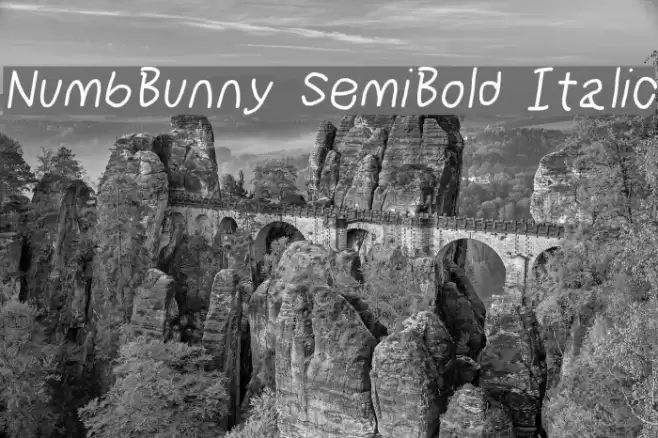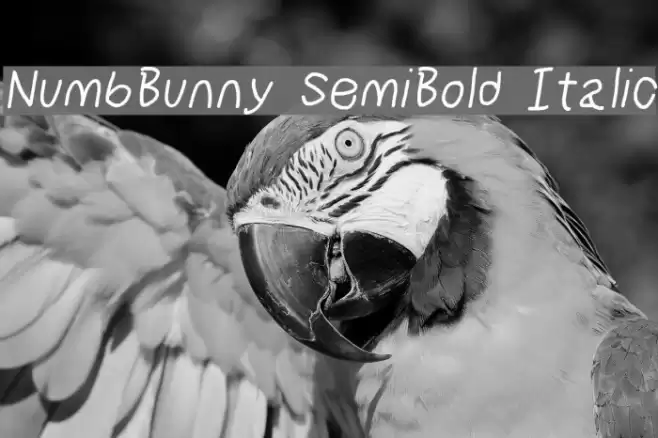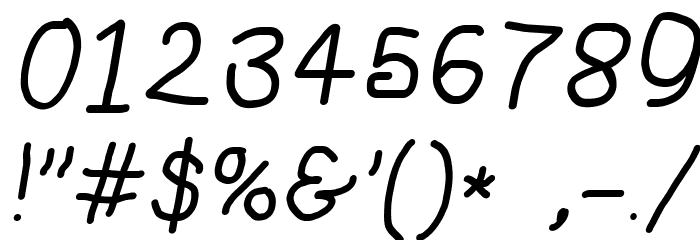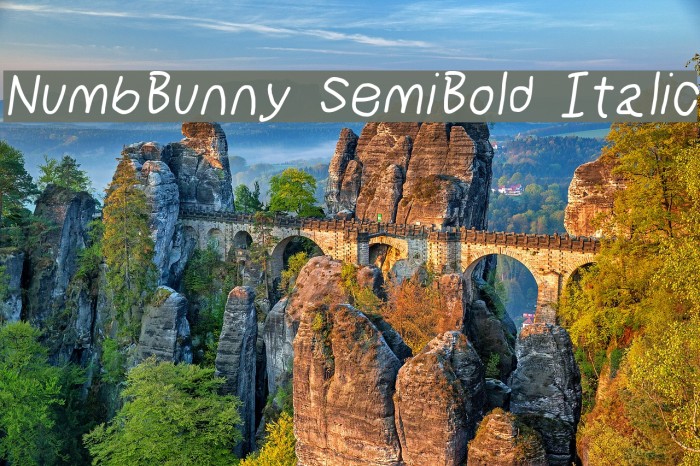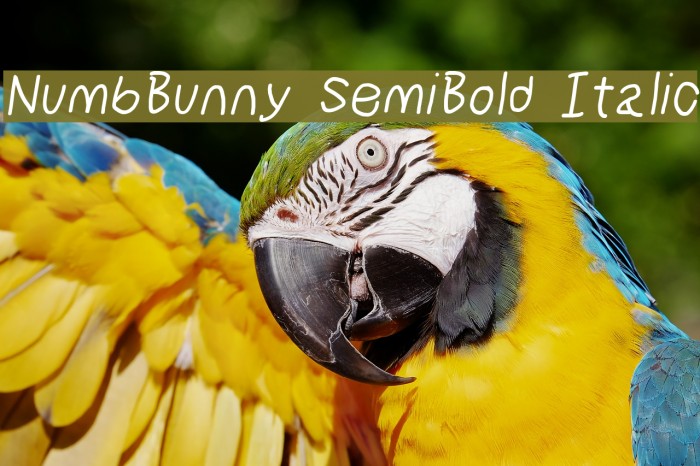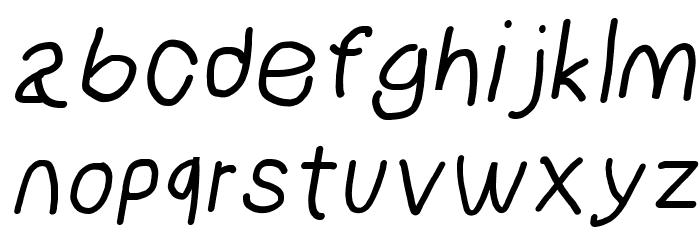
NumbBunny SemiBold Italic Font
NumbBunny SemiBold Italic Description
This playful and energetic font features a handwritten style with a semi-bold weight, giving it a lively and approachable appearance. The letters are slightly italicized, adding a sense of movement and casual elegance. Each character is crafted with smooth, rounded edges and consistent stroke widths, creating a harmonious and friendly look. The font maintains a balanced character spacing, ensuring readability while preserving its whimsical charm. Its unique style makes it suitable for projects that require a personal touch or a creative flair.
A playful, semi-bold handwritten font with italicized characters and smooth, rounded edges from Easter fonts.
- Proposed Projects: Ideal for children's books, greeting cards, playful branding, and creative social media graphics.
- Overall Style: Playful
- Use Case: Headlines, Logos, Creative projects